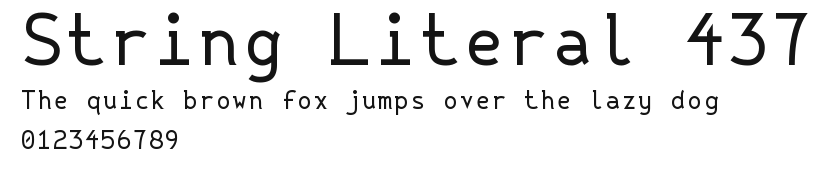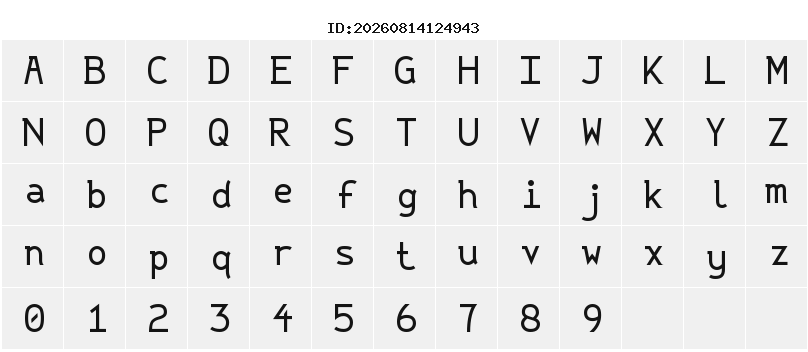
String Literal 437 Preview
• Font Name: String Literal 437
• Font ID: String Literal 437 Medium
• Full Font Name: String Literal 437 Medium
• PostScript Name: StringLiteral
About String Literal 437.ttf
String Literal 437.ttf is a modern, elegant sans-serif font designed for ultimate readability and visual harmony. Perfect for branding, headlines, web design, and print materials.